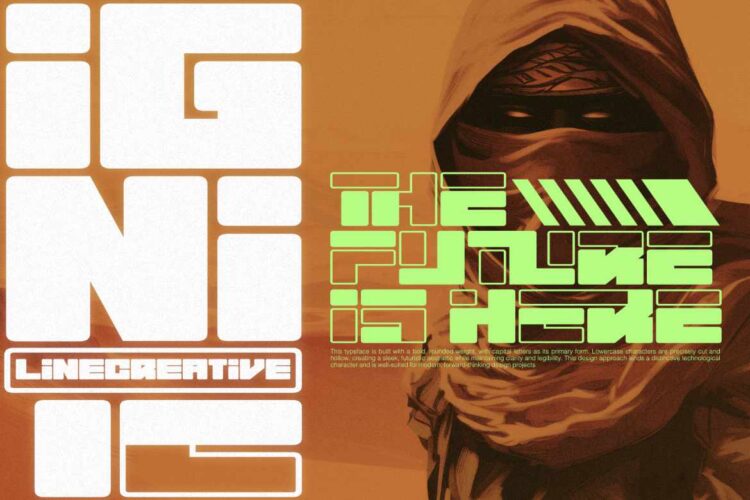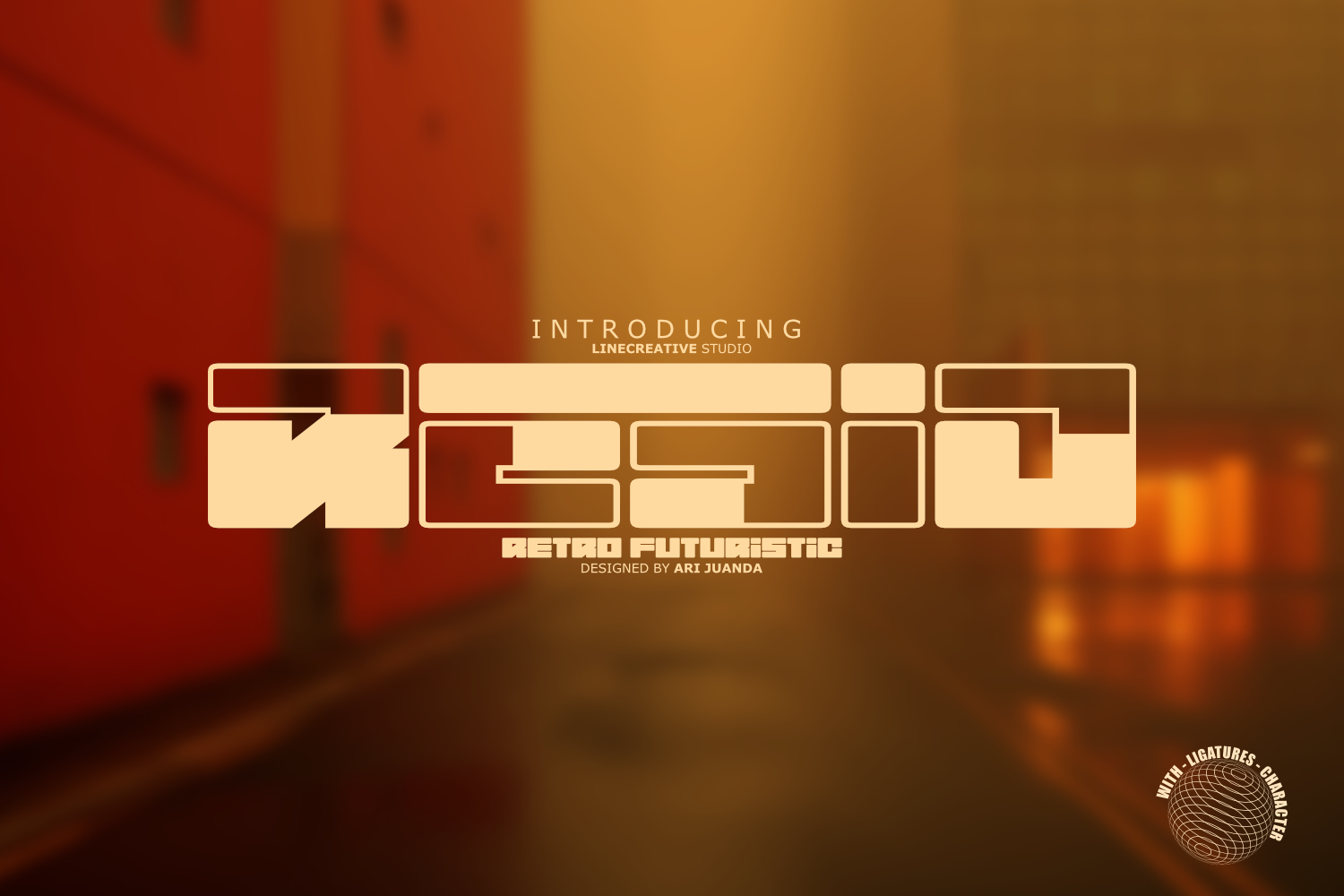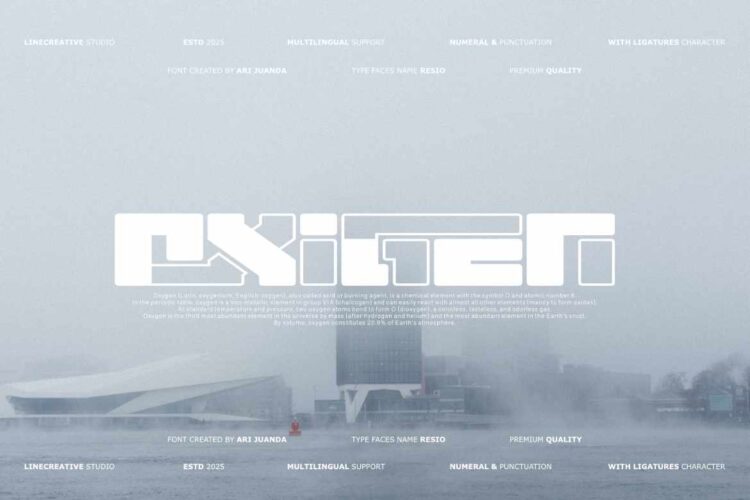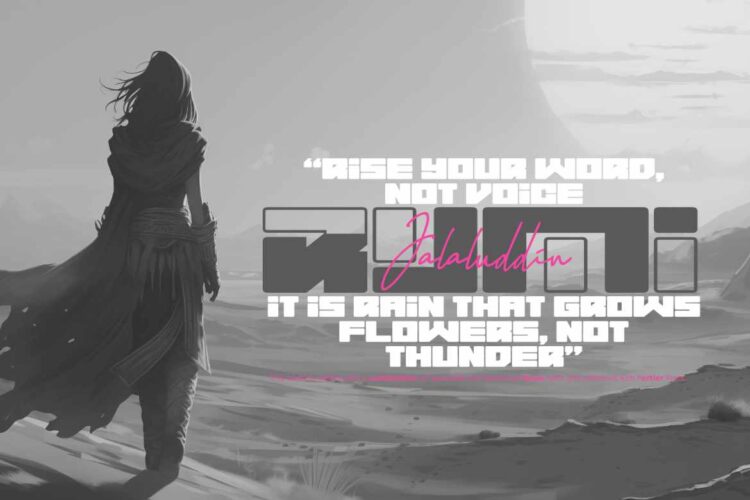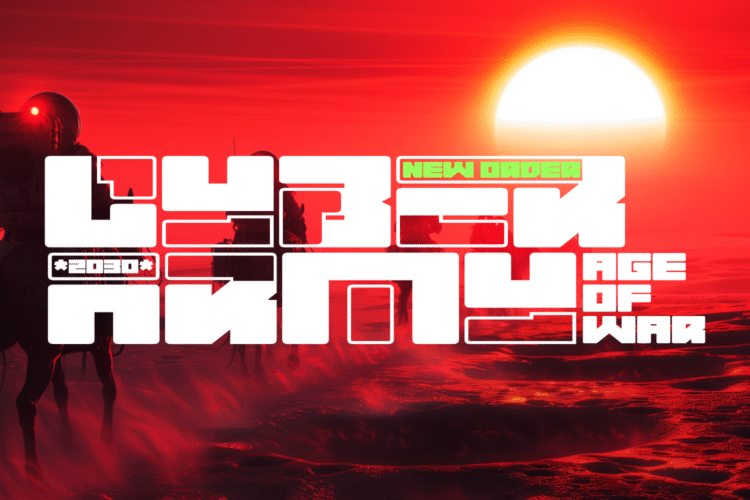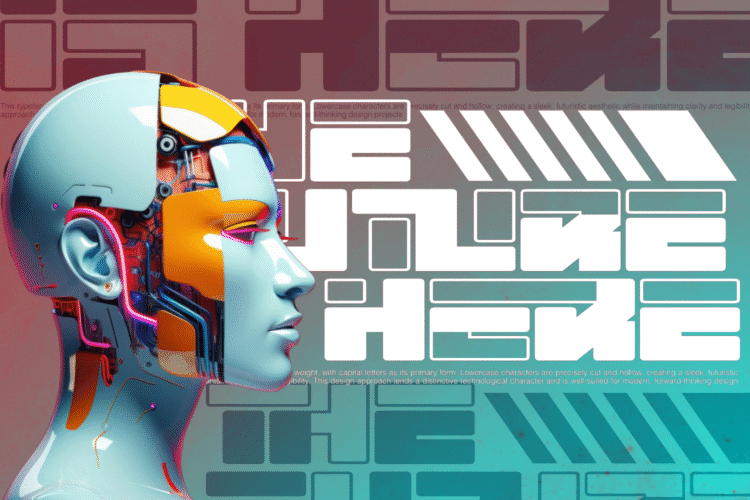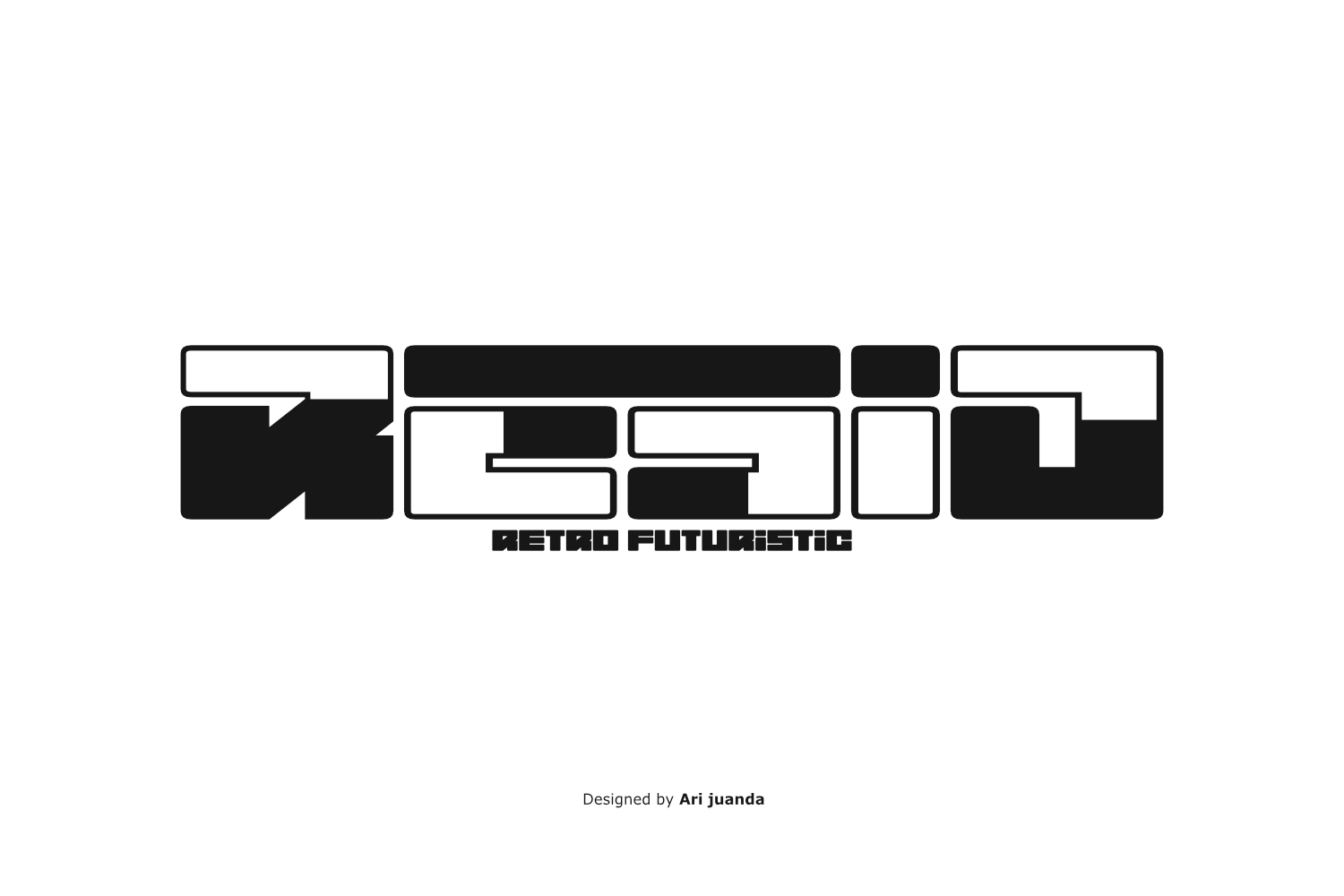
Resio a typeface
Introducing the Resio font, this typeface is built with bold, rounded weights, with capital letters as its primary form. Lowercase characters are precisely cut and hollow, creating a sleek, futuristic aesthetic while maintaining clarity and legibility. This design approach gives it a distinctive technological character and is well-suited for modern, forward-thinking design projects.